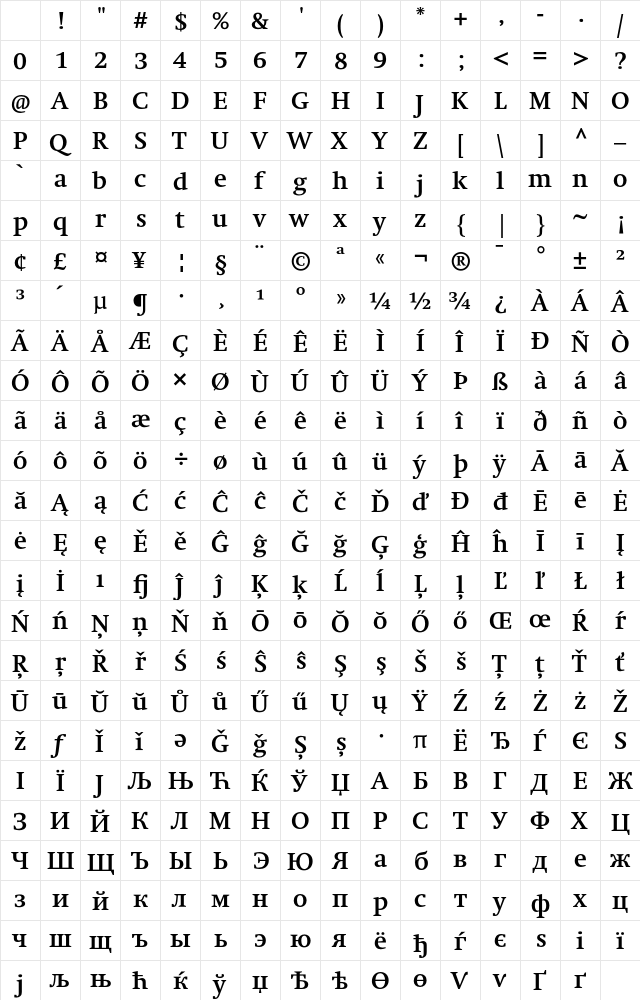
Swift1 OT is a composed and adaptable typeface that performs quietly and consistently across a wide range of design contexts. Its bold stroke weight gives it real presence on the page.